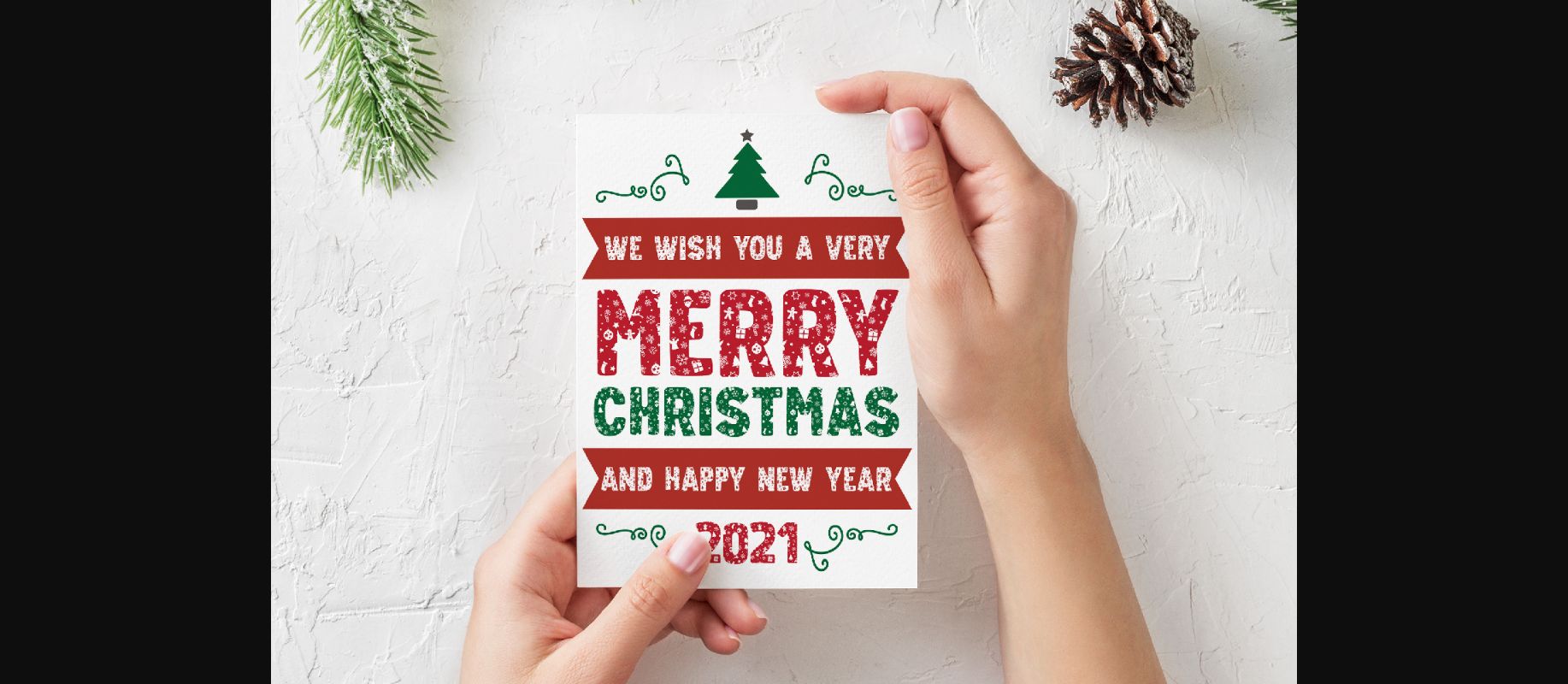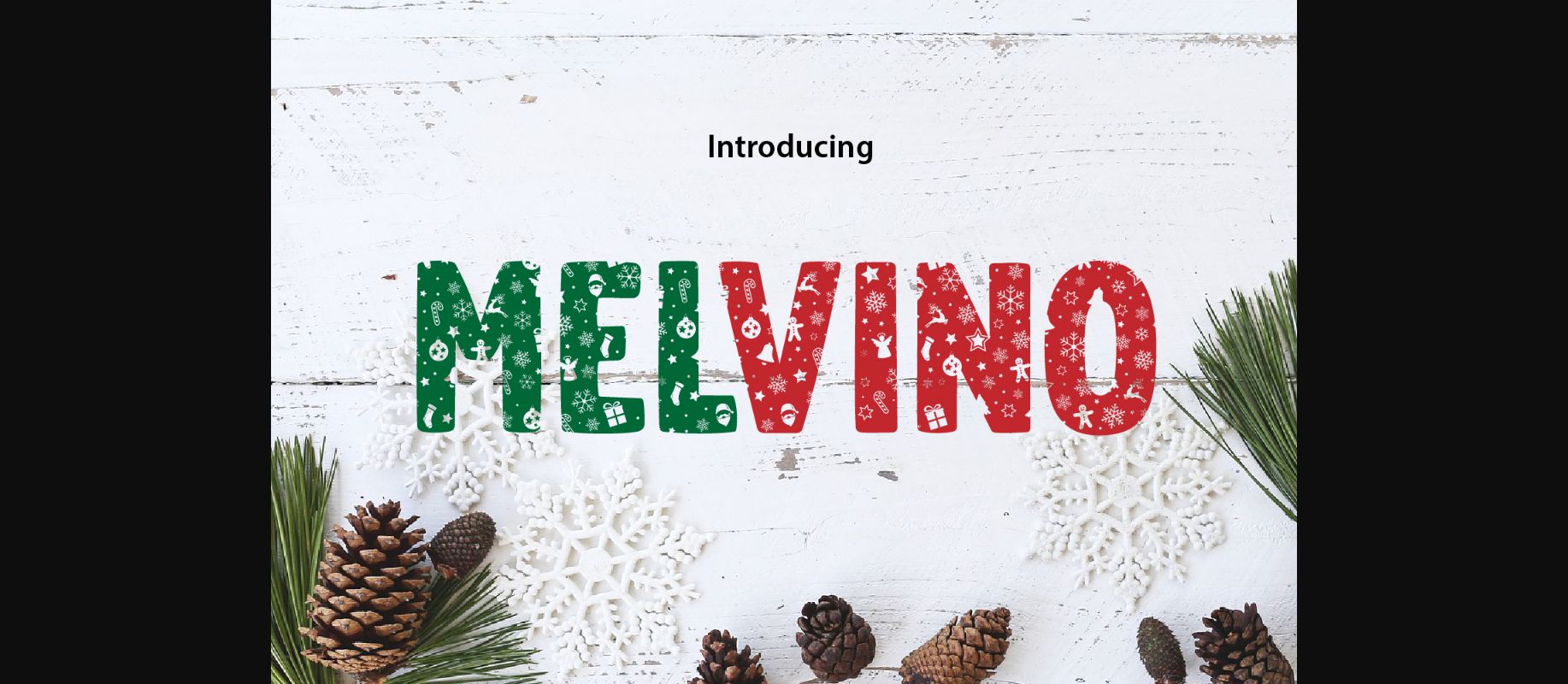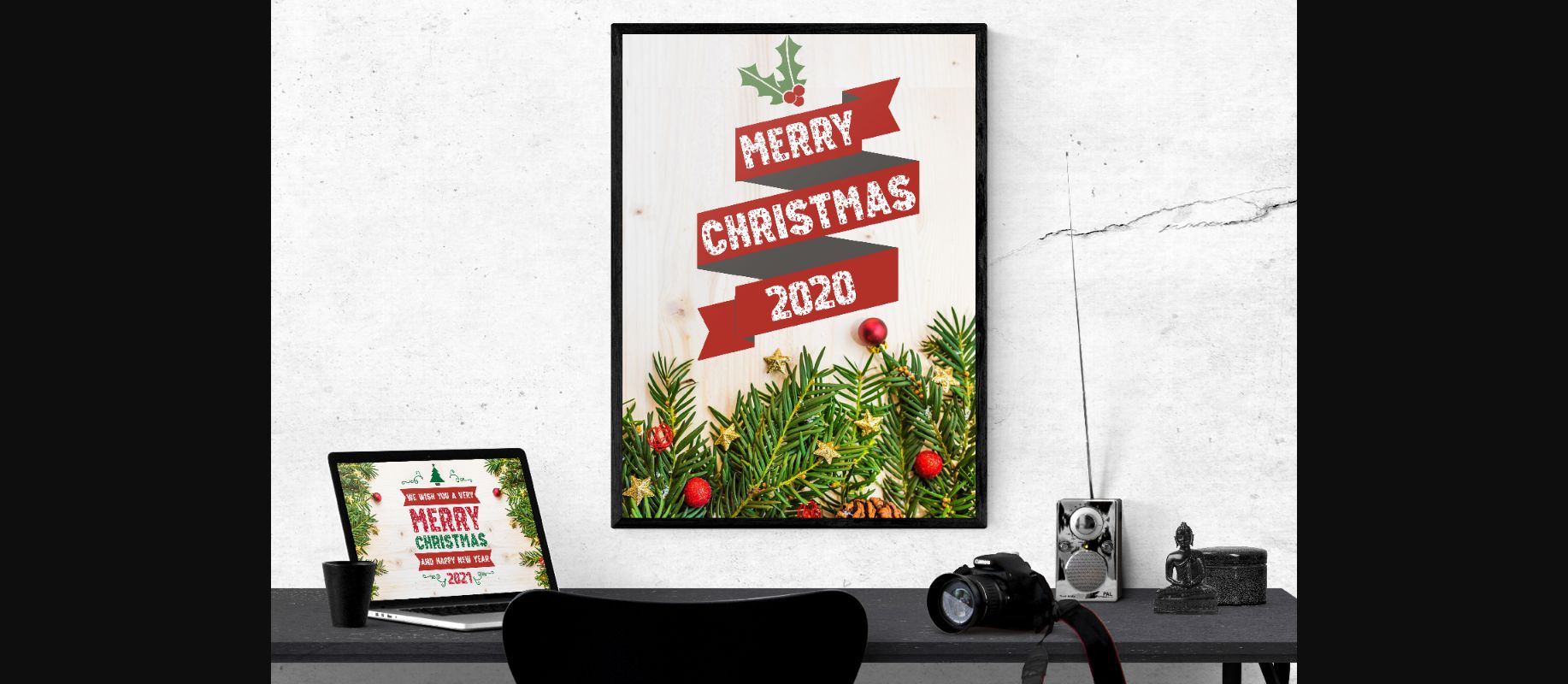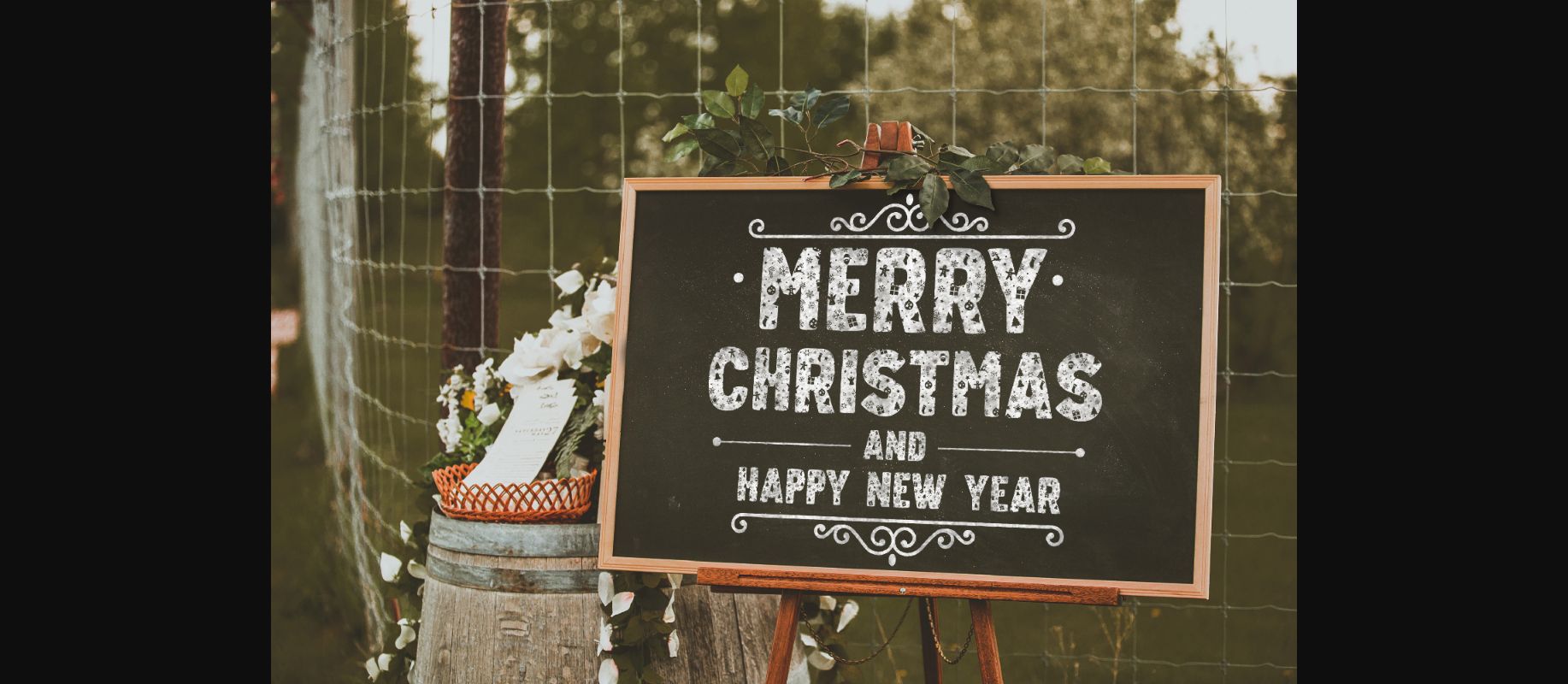
About Melvino Font
Melvino is a fun and joyful decorative font. It has snow elements on each character which gives it a playful feel. It’s the perfect choice for cards, prints, illustrations, decorations, Christmas designs, and much more!